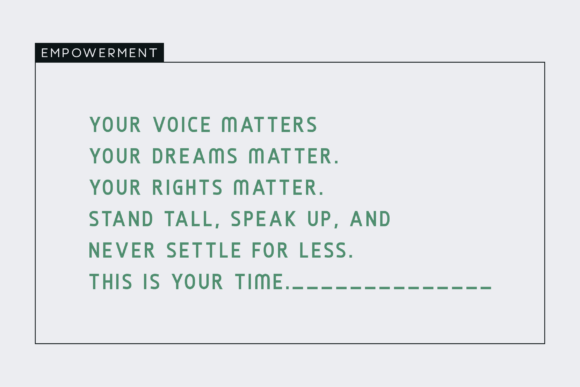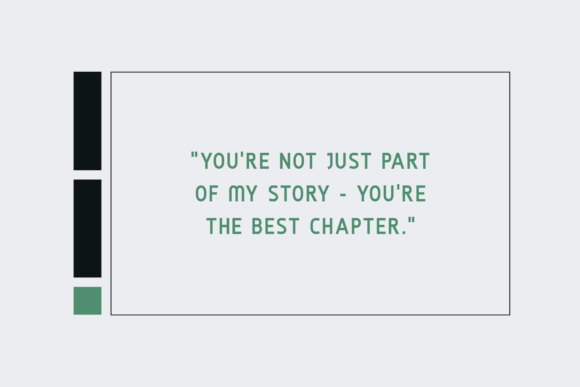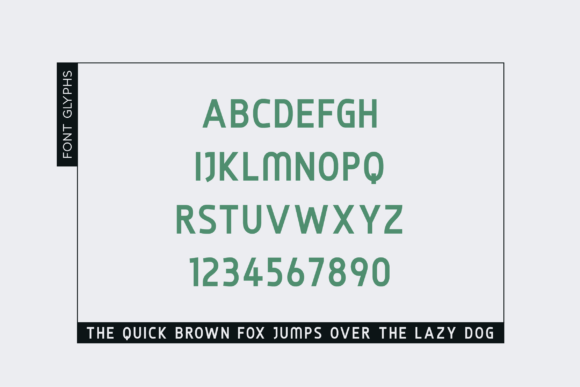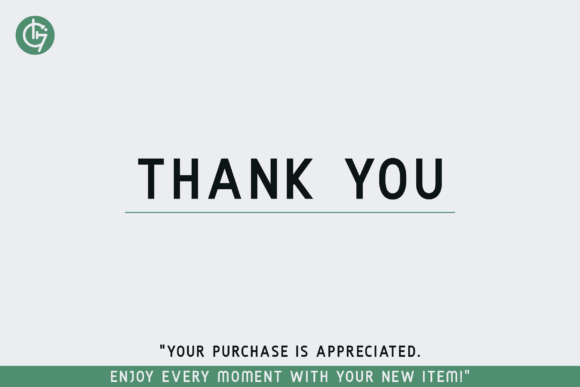
Introducing Chymeron – A Modern Sans Serif Typeface
In the world of design, typography plays a crucial role in conveying messages, expressing creativity, and building brand identities. For designers and crafters seeking a bold, modern, and professional font, Chymeron is an excellent choice. This all-caps sans serif typeface is specifically designed for the modern designer, offering a clean, minimalist aesthetic that exudes strength and authority.
Key Features of Chymeron
Chymeron boasts several key features that make it an ideal choice for a wide range of design projects. Some of its notable features include:
- All-caps design for maximum impact and emphasis on clarity and readability.
- Modern, minimalist style with a focus on clean lines, simplicity, and elegance.
- Bold, clean lines for a confident and professional look that commands attention.
- Ideal for branding, logos, packaging, and digital design, offering versatility across various mediums.
- Perfect for both large-scale headlines and smaller text blocks, providing flexibility in design applications.
Who Benefits from Chymeron?
Chymeron is a versatile typeface that can benefit a wide range of designers and crafters, including:
- Graphic Designers: Seeking a bold and professional font for branding, logos, and marketing materials.
- Digital Designers: Looking for a clean and modern sans serif font for websites, mobile apps, and digital interfaces.
- Print Designers: Needing a strong and impactful font for posters, flyers, brochures, and other print materials.
- Branding and Marketing Professionals: Aiming to create a professional and cohesive brand image.
Design Applications of Chymeron
Chymeron’s versatility and modern aesthetic make it suitable for various design applications, including:
- Logo Design: Create a bold and memorable logo that stands out and communicates professionalism.
- Branding and Identity: Develop a cohesive brand image with Chymeron’s clean and modern style.
- Digital Interfaces: Enhance user experience with Chymeron’s clear and readable design, perfect for digital products and services.
- Print Materials: Make a statement with Chymeron’s bold and impactful design, ideal for posters, flyers, and other print materials.
Why Choose Chymeron?
With numerous fonts available, why should designers and crafters choose Chymeron? Here are some compelling reasons:
- Unique and Modern Aesthetic: Chymeron offers a fresh and contemporary design that sets it apart from traditional typefaces.
- High Readability: The all-caps design and clean lines ensure excellent readability, even at smaller font sizes.
- Versatility: Chymeron’s geometric structure and bold design make it suitable for a wide range of design applications.
- Professionalism: The font’s modern and minimalist style conveys professionalism and sophistication, perfect for branding and marketing materials.
In conclusion, Chymeron is an exceptional modern sans serif typeface that offers a unique blend of style, versatility, and professionalism. Its bold, clean lines and all-caps design make it perfect for designers and crafters seeking a font that can make a statement. Whether you’re working on branding, digital design, or print materials, Chymeron is an excellent choice for adding a touch of modern sophistication to your projects.